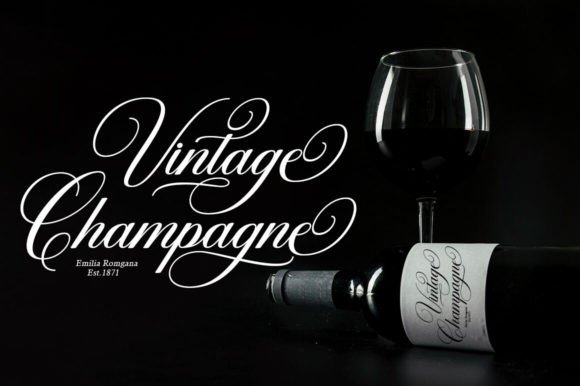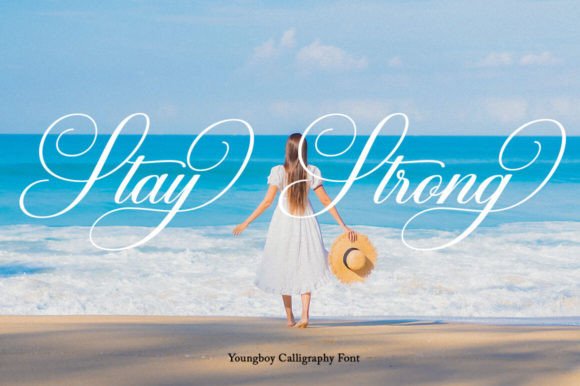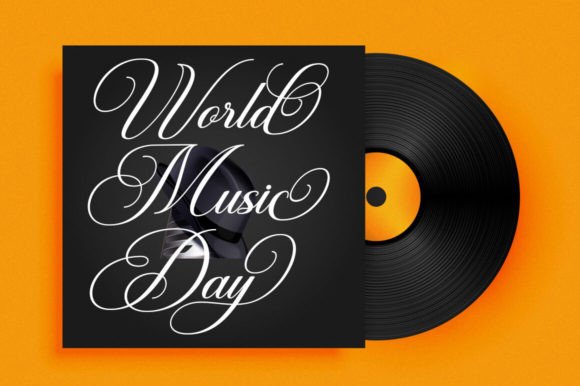
Youngboy Font
Youngboy is a vintage-style calligraphy font with a modern feel. It offers versatility and elegance, making it perfect for a variety of design projects, from branding and packaging to invitations and signage. Youngboy is a calligraphy font that comes with very beautiful changing characters, a type of classic decorative copper script with a modern touch, designed with high detail to present an elegant style.
Youngboy is attractive because the typeface is smooth, clean, feminine, sensual, glamorous, simple, and very easy to read, due to the many fancy letter connections. The classic style is very suitable to be applied in various formal forms such as invitations, labels, restaurant menus, logos, fashion, makeup, stationery, novels, magazines, books, greeting/wedding cards, packaging, labels, or all kinds of advertising purposes.